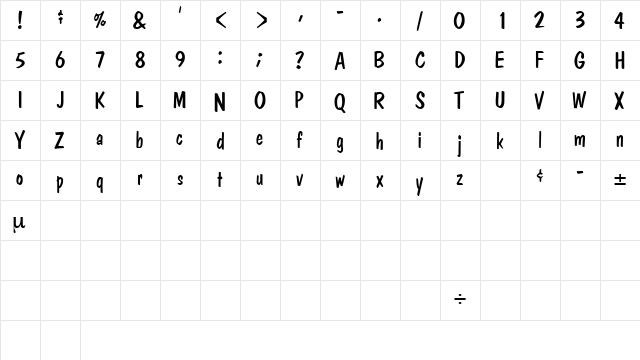
BangaSSK Regular Font Preview
BangaSSK Regular
Design Context for BangaSSK Typeface
BangaSSK is a composed and adaptable typeface that performs quietly and consistently across a wide range of design contexts.